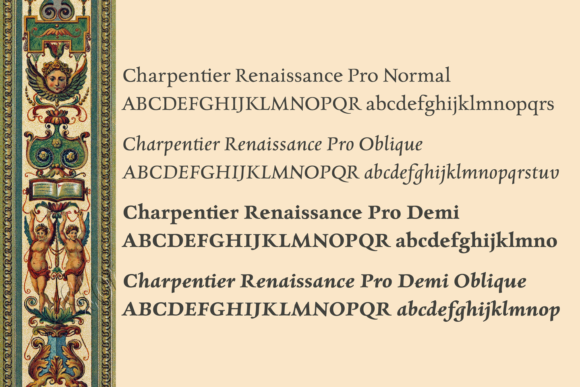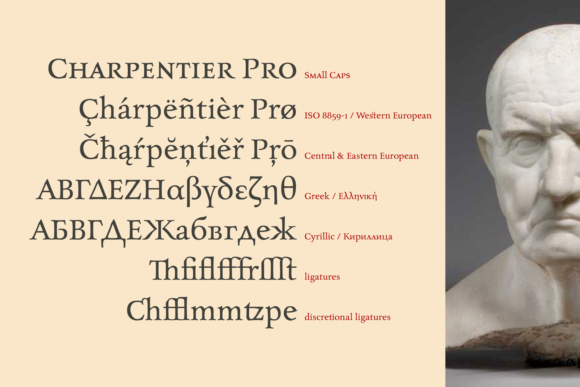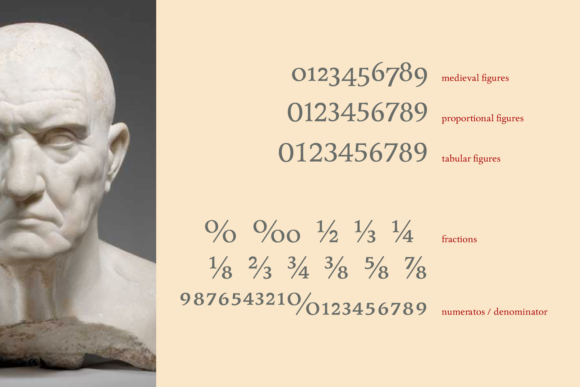
The Perfect Brush Stroke: Unleashing the Power of Charpentier Renaissance Pro Font
As a designer, there’s nothing quite like the thrill of the creative process. The moment when a project starts to come together, and the words begin to flow onto the page. It’s a feeling that’s hard to describe, but it’s a mix of excitement, nervousness, and a dash of inspiration. And for many of us, the right font can be the key to unlocking that magic.
Enter Charpentier Renaissance Pro Font, a unique and iconic serif font that’s as bold as it is beautiful. Designed to evoke the spirit of the Renaissance era, this font is perfect for designers who want to add a touch of elegance and sophistication to their work. Whether you’re creating a brochure, a website, or a book, Charpentier Renaissance Pro Font is the perfect choice for making a lasting impression.
Charpentier Renaissance Pro Font Features
- Unique Characteristics: This font features a unique blend of Renaissance-era elegance and modern sophistication, making it ideal for designs that require a touch of history and refinement.
Charpentier Renaissance Pro Font Review
Overall, I have mixed feelings about the Charpentier Renaissance Pro Font. On one hand, it’s a great choice for designers looking to add a touch of elegance and sophistication to their projects. ✨
- Unique character set: Charpentier Renaissance Pro Font features a beautiful, unique character set that’s reminiscent of 16th-century typography. This font is perfect for designers who want to add a touch of historical flair to their designs.
- High-quality rendering: The font is well-rendered and looks great at various font sizes, making it a great choice for both digital and print projects.
However, there are some limitations to consider. ⚠️
- Not ideal for body text: While the font is great for headlines and titles, it’s not the most readable font for body text. It’s a bit too ornate and may be difficult to read in large quantities.
- Limited language support: The font only supports Latin-based languages, which may be a limitation for designers who need to support languages like Arabic or Chinese.
Overall, I would recommend Charpentier Renaissance Pro Font for designers who need a unique, elegant font for specific projects. However, it may not be the best choice for general use or for designers who need a highly readable font.
Charpentier Renaissance Pro font is ideal for creating elegant, vintage-inspired designs. Use it for:
Historical or period-themed designs.
High-end branding and marketing materials.
Remember to pair the font with complementary colors and design elements to achieve a cohesive look.